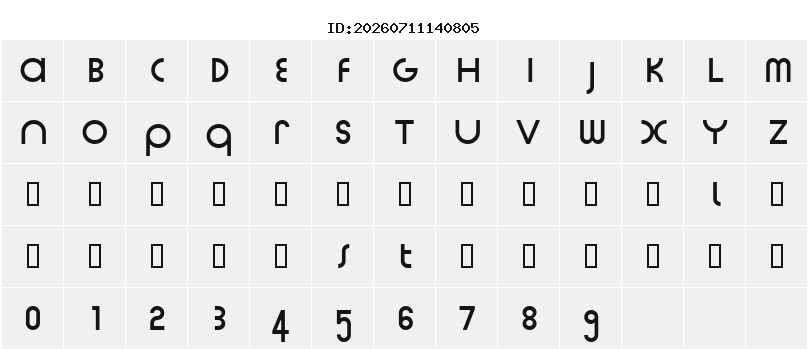
Marfhaus Preview
About Marfhaus.ttf
Marfhaus.ttf is a modern, elegant sans-serif font designed for ultimate readability and visual harmony. Perfect for branding, headlines, web design, and print materials.